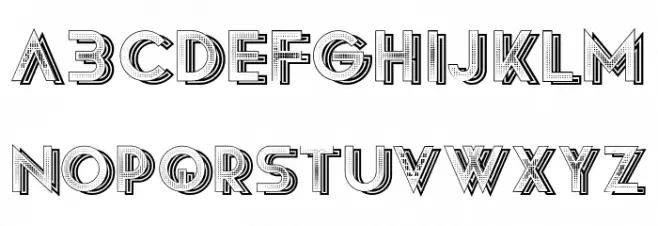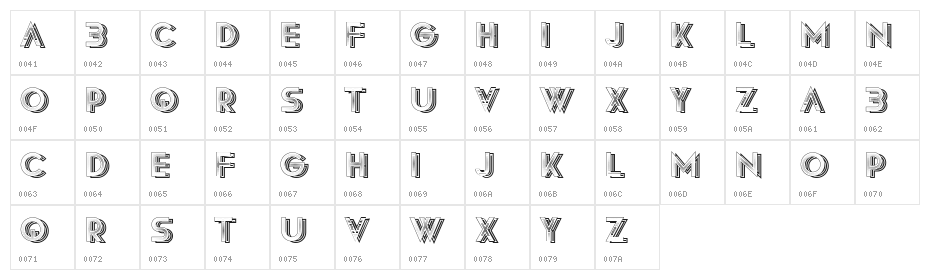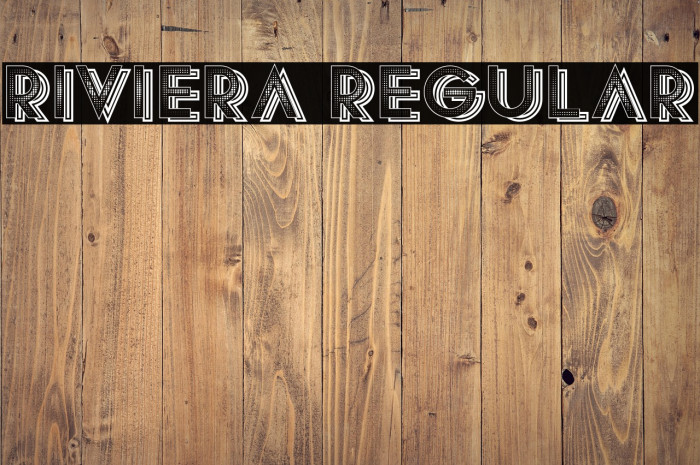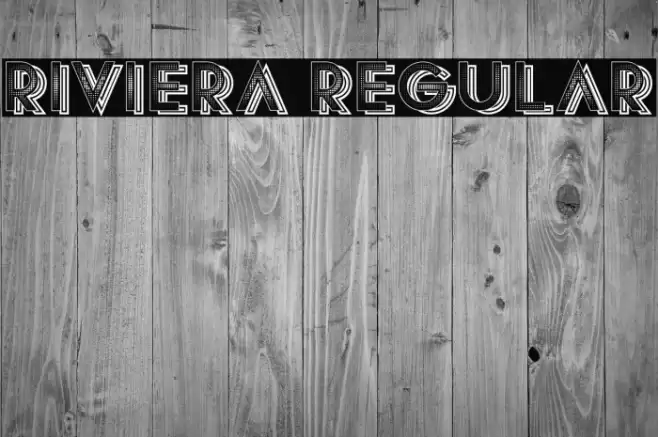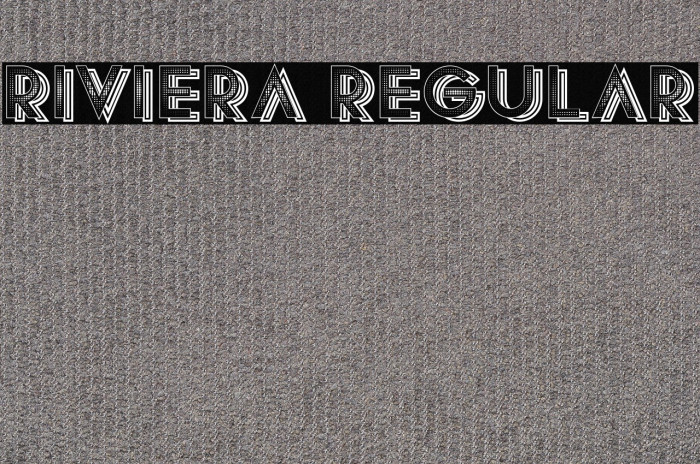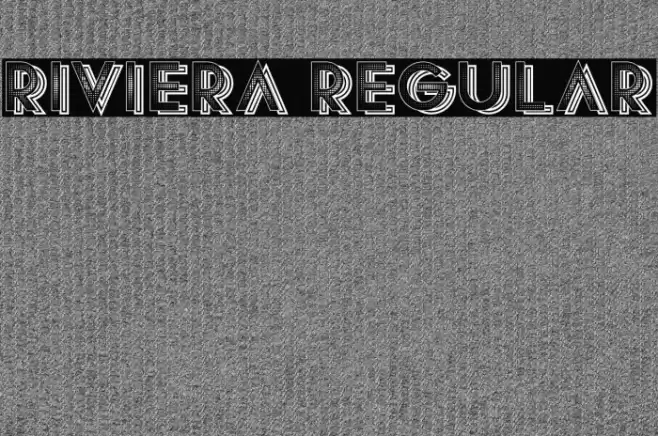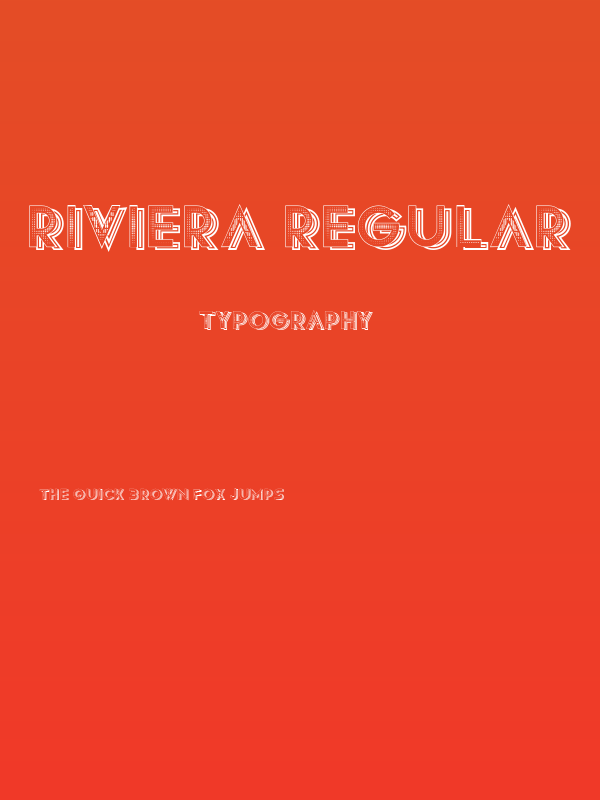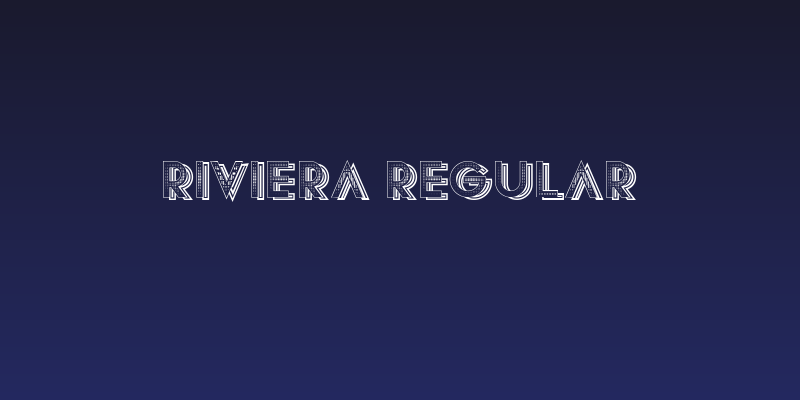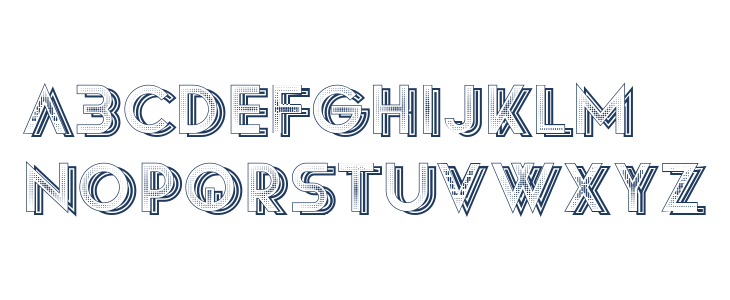
Riviera Regular Font
Riviera Regular Description
This font features a bold and decorative style with a geometric and layered design. Each character is constructed with multiple outlines and internal patterns, creating a sense of depth and dimension. The uppercase letters are particularly striking, with sharp angles and a modern aesthetic. The font's intricate detailing and structured form make it ideal for eye-catching designs. Its unique style combines elements of art deco and modern typography, making it suitable for projects that require a strong visual impact.
| Proposed Projects | Ideal for posters, branding, headlines, and any design requiring a strong visual impact. |